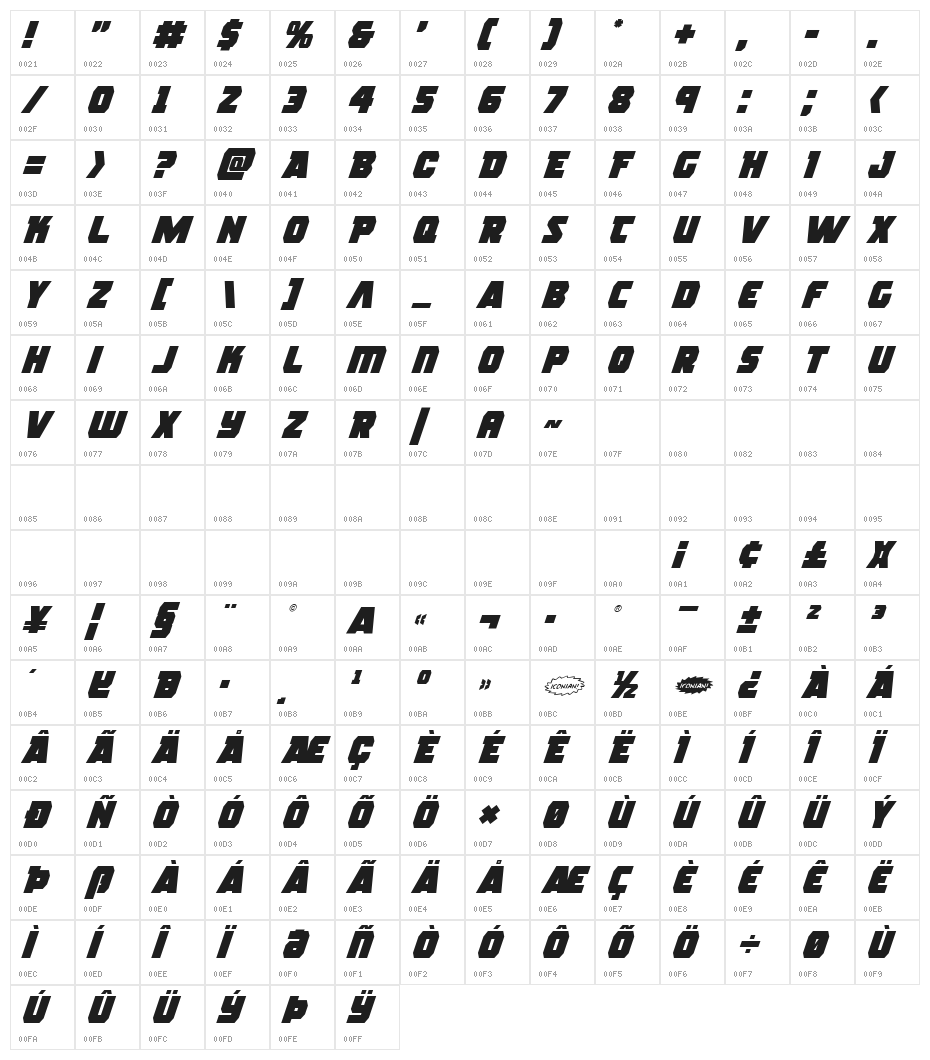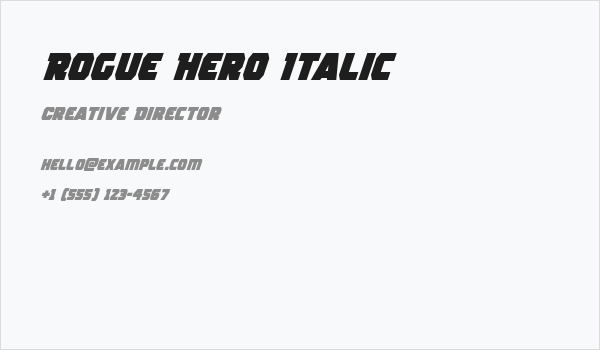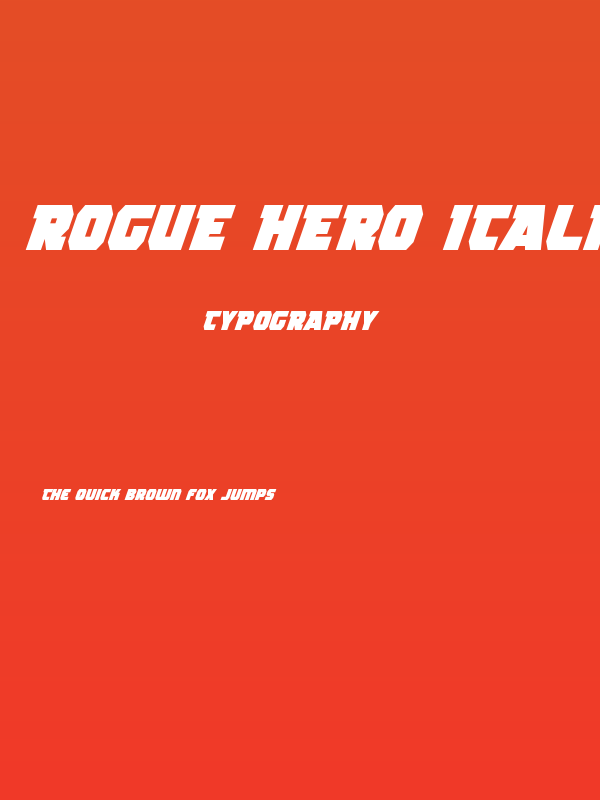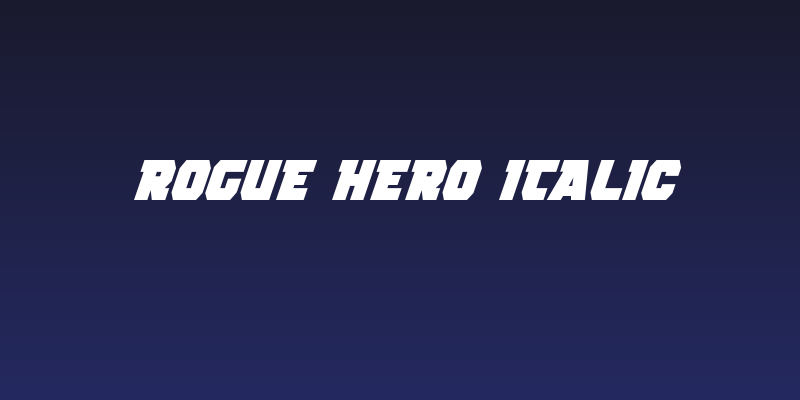
Rogue Hero Italic Font
Rogue Hero Italic Description
This font features a bold and dynamic design with a strong, angular structure. The characters are italicized, giving a sense of motion and energy. The uppercase and lowercase letters maintain a consistent style, with sharp edges and a slightly condensed form. The numerals are equally bold, ensuring visibility and impact. Special characters are designed to match the overall aesthetic, making them suitable for various uses. The font's aggressive and modern look makes it ideal for projects that require a strong visual presence.
| Proposed Projects | Ideal for sports branding, action movie posters, video game titles, and dynamic advertising campaigns. |